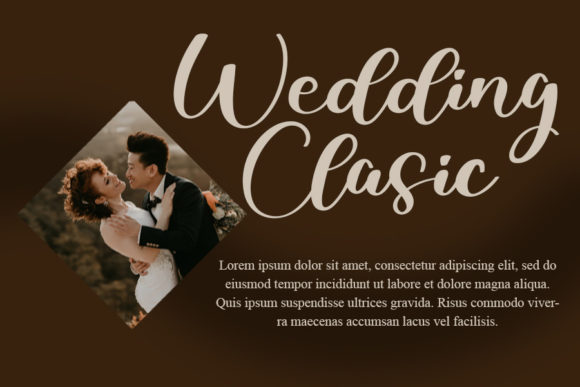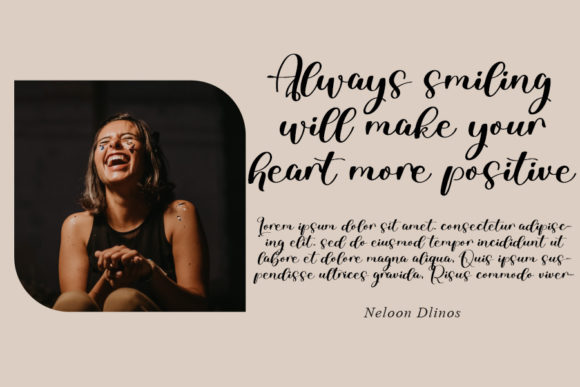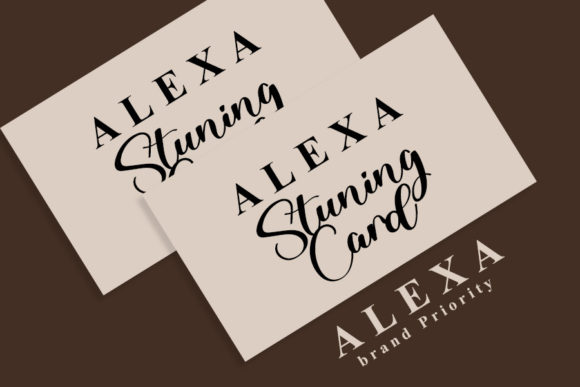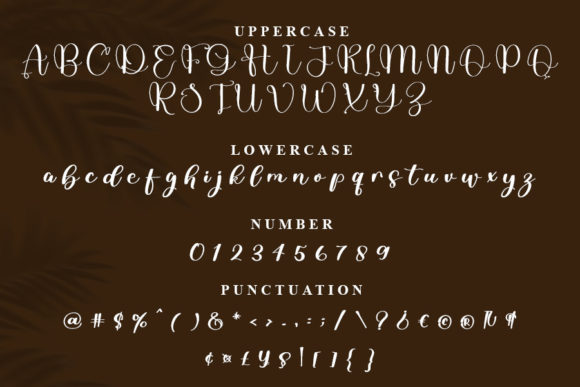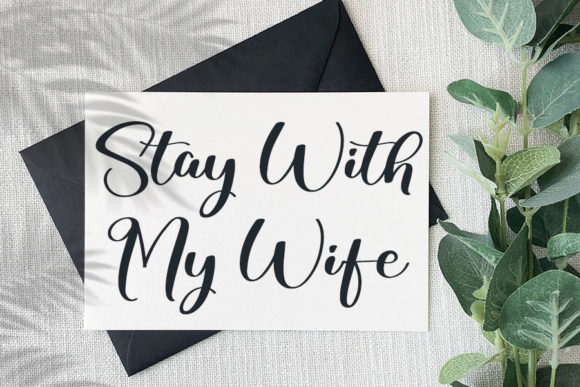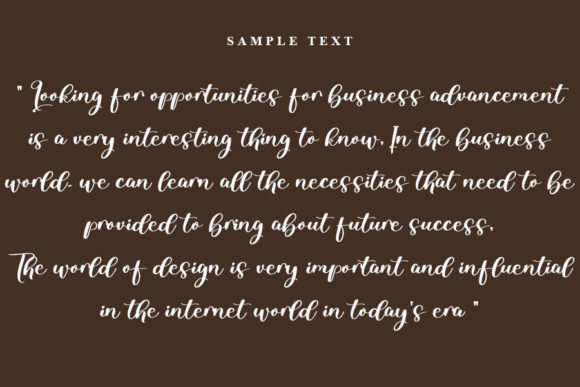
Introducing Blankly Font: Elevate Your Designs with Timeless Elegance
In the world of typography, a font can make or break the aesthetic of a project. For designers and crafters seeking a touch of sophistication and classic charm, Blankly Font emerges as a stunning solution. This stylish handwritten font boasts a contemporary atmosphere, impeccable form, and a balanced, varied design that enhances the beauty of any project.
The Inspiration Behind Blankly Font
Blankly Font draws inspiration from timeless classic calligraphy, infusing it with a modern twist. The result is a font that exudes elegance and poise, perfect for projects that demand a high level of sophistication. Whether you’re working on a branding campaign, packaging design, or a personal craft project, Blankly Font offers the versatility and style to elevate your work.
Key Features of Blankly Font
- Stylish Handwritten Design: Blankly Font features a beautiful, handwritten design that adds a personal touch to any project.
- Contemporary Atmosphere: With its modern take on classic calligraphy, Blankly Font brings a fresh and contemporary feel to your designs.
- Impeccable Form: The font’s impeccable form ensures that it remains legible and visually appealing, even at smaller sizes.
- Balanced and Varied: Blankly Font offers a range of variations, allowing you to add depth and interest to your projects.
Uses for Blankly Font
Blankly Font’s versatility makes it suitable for a wide range of projects, including:
- Branding and Logos: Create a lasting impression with a custom logo or branding campaign that showcases your business’s personality and style.
- Packaging Design: Add a touch of elegance to your product packaging and stand out on store shelves.
- Stationery and Invitations: Create beautiful stationery, invitations, and greeting cards that showcase your personal style.
- Digital Media: Use Blankly Font in your digital projects, such as social media graphics, blog posts, and website headers.
Tips for Using Blankly Font
To get the most out of Blankly Font, consider the following tips:
- Pair with Other Fonts: Combine Blankly Font with other fonts to create a unique and visually appealing typography scheme.
- Pay Attention to Spacing: Ensure that your text is easy to read by paying attention to spacing and kerning.
Blankly Font is a stunning addition to any designer’s or crafter’s toolkit. With its timeless classic calligraphy inspiration, contemporary atmosphere, and impeccable form, this font is sure to elevate your projects and leave a lasting impression. Whether you’re working on a professional project or a personal craft, Blankly Font offers the style, versatility, and elegance to bring your vision to life.